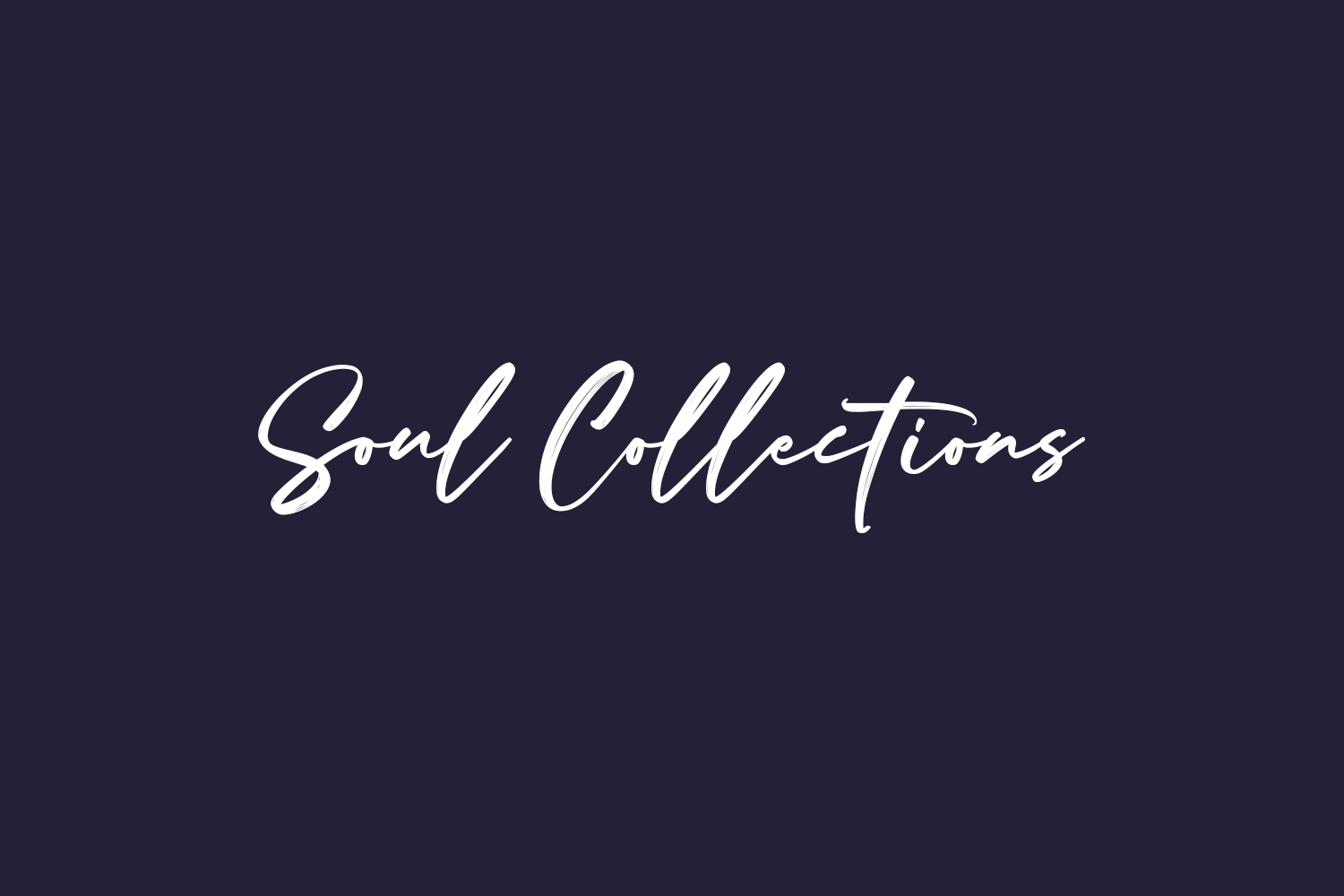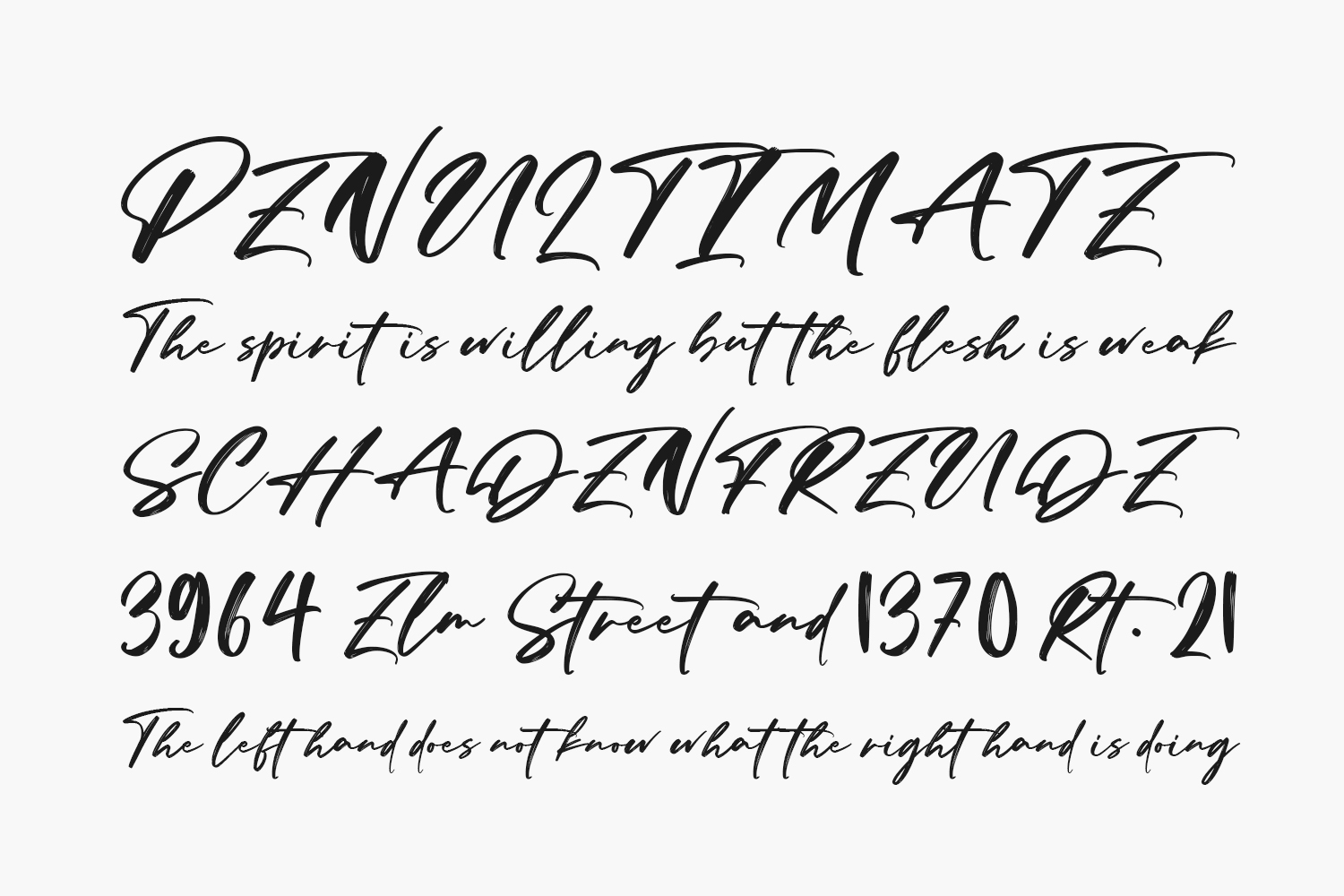
Soul Collections Free Font is a graceful script font. Fall for its ravishing style and use it to create gorgeous wedding invitations, beautiful stationary art, eye-catching social media posts, and much more.